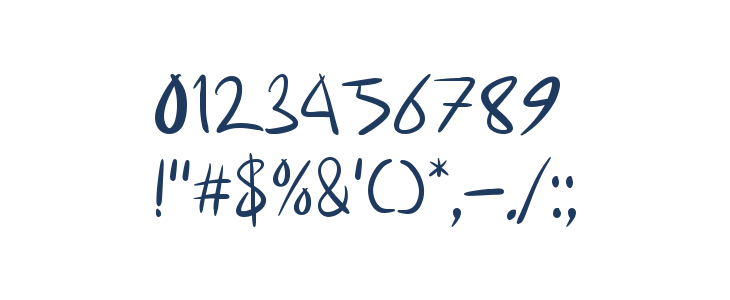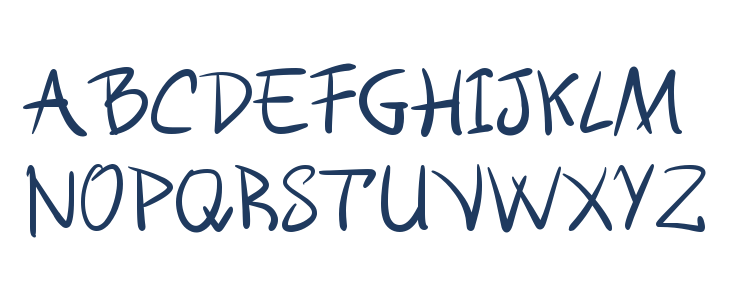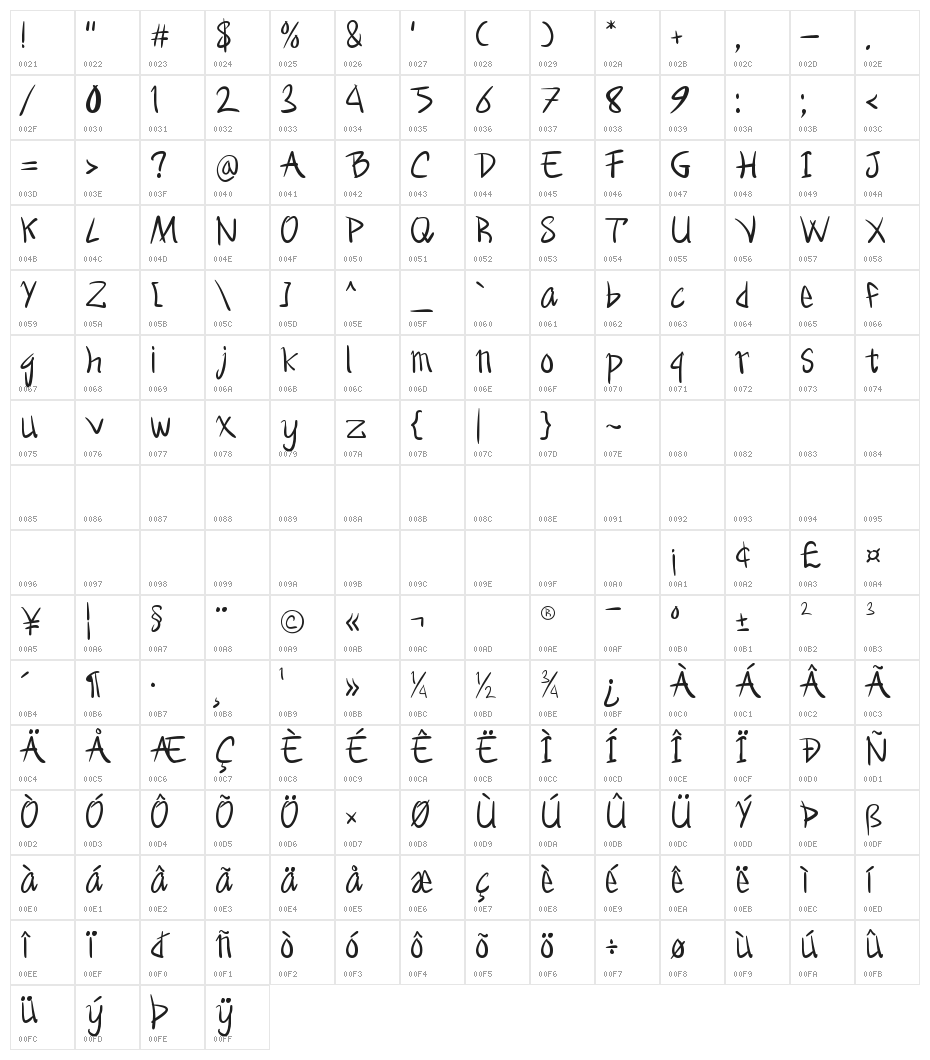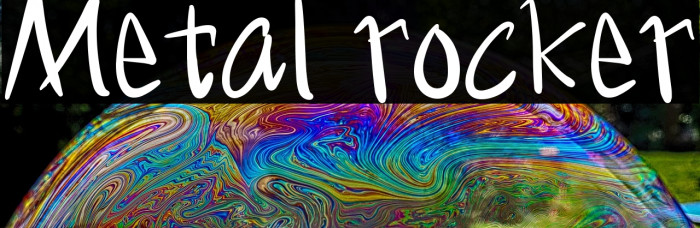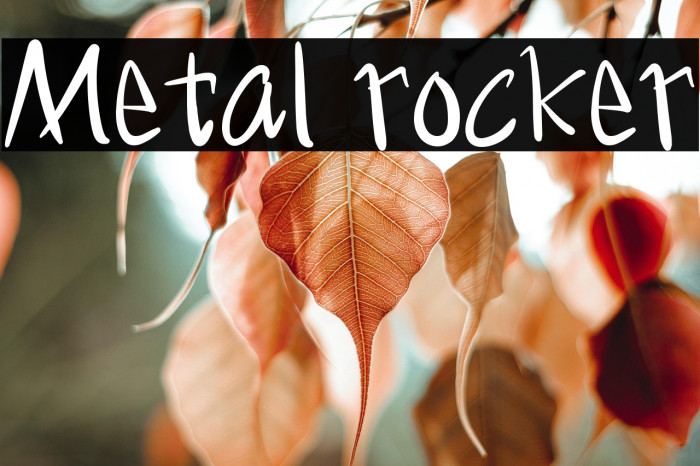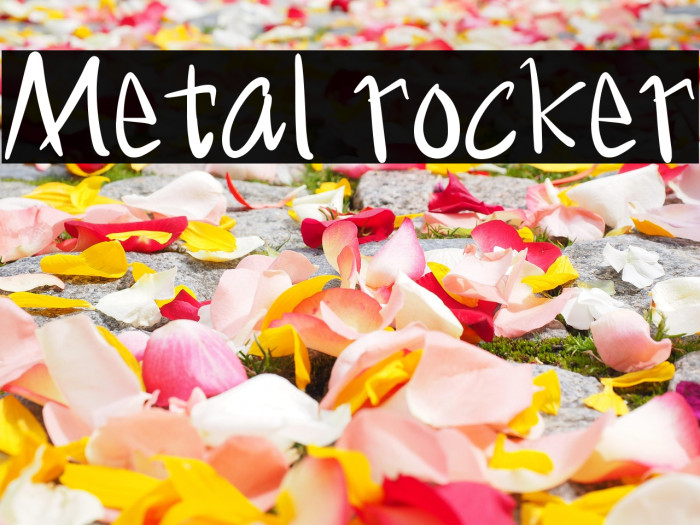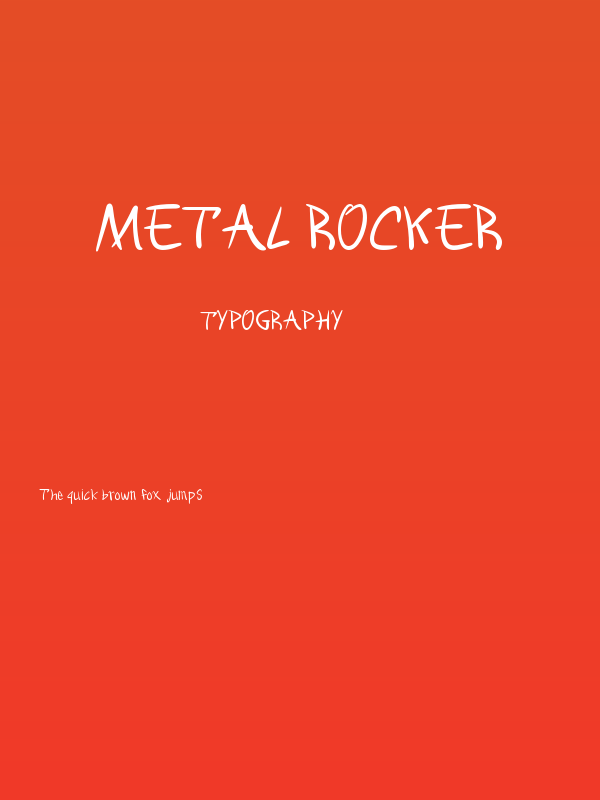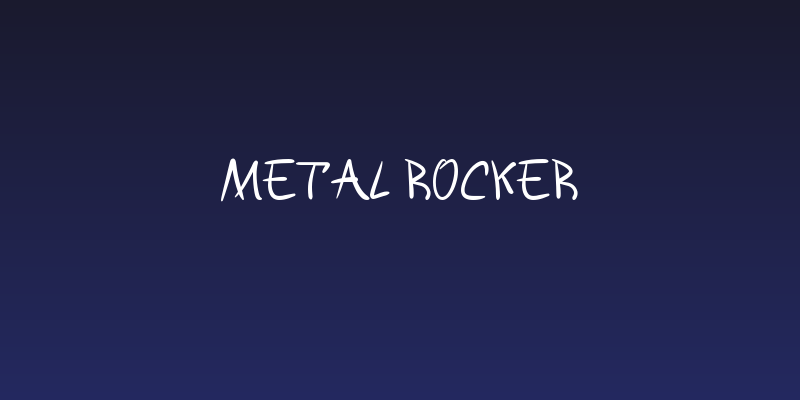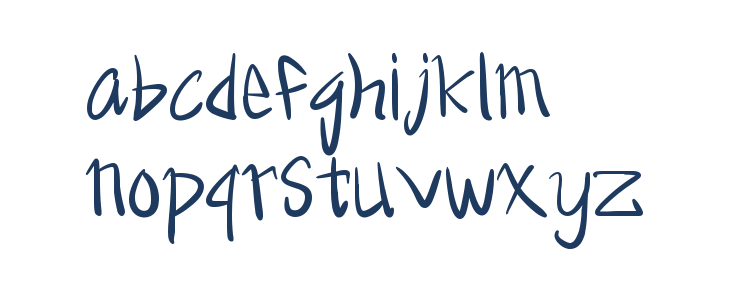
Metal rocker Font
Metal rocker Description
A bold, handwritten font with irregular, energetic strokes and a slightly chaotic, expressive style. The characters have a casual, rebellious feel, with varying heights and slanted lines, evoking a sense of movement and attitude.
| Overall Style | Decorative, Edgy, Modern |
| Use Case | Headlines, Posters, Logos, Informal branding |
| Proposed Projects | Band posters, album covers, edgy branding, event flyers, youth-oriented designs. |